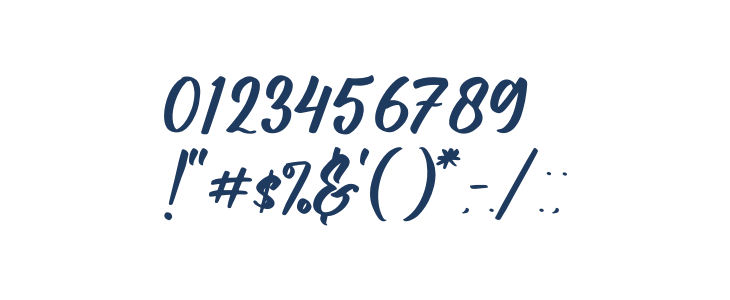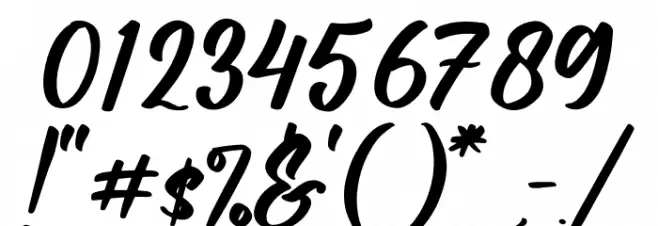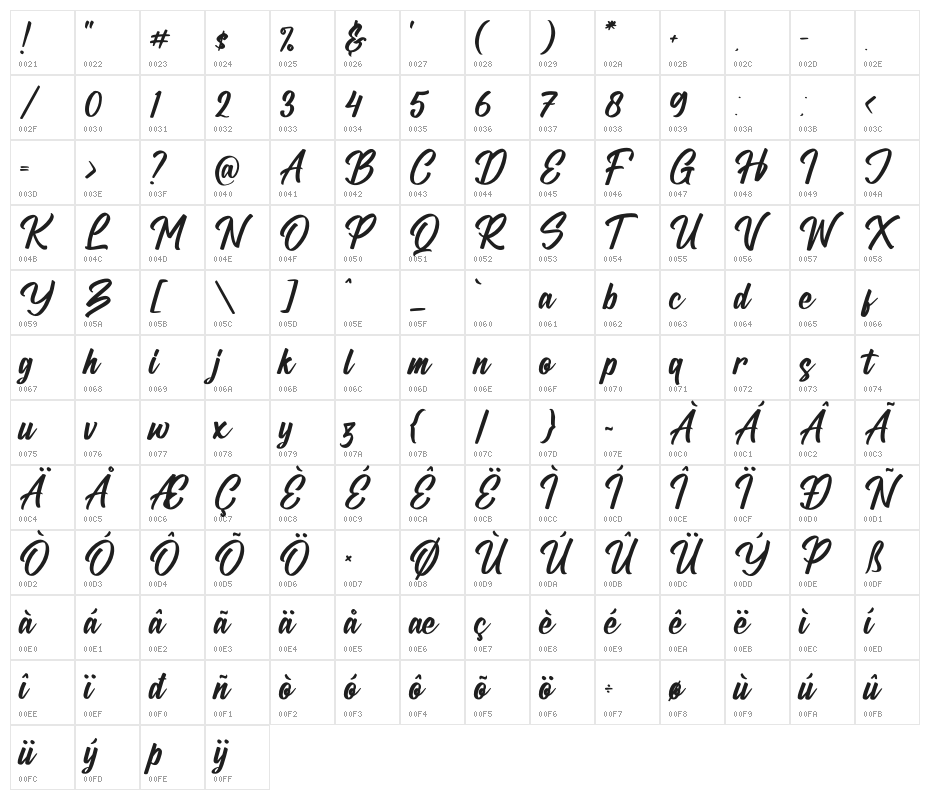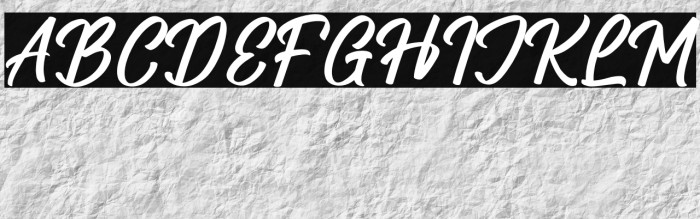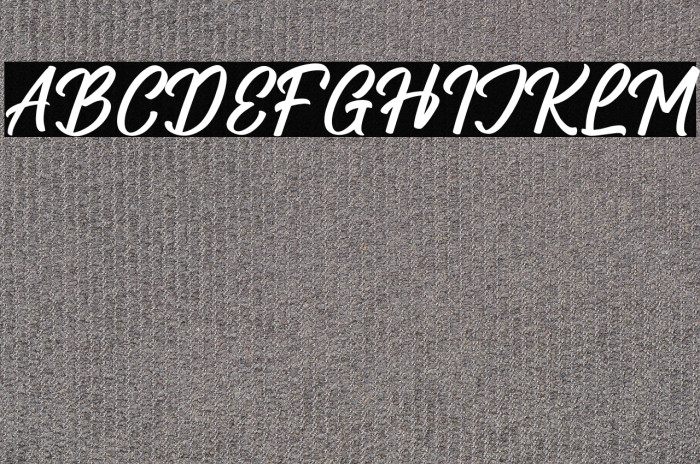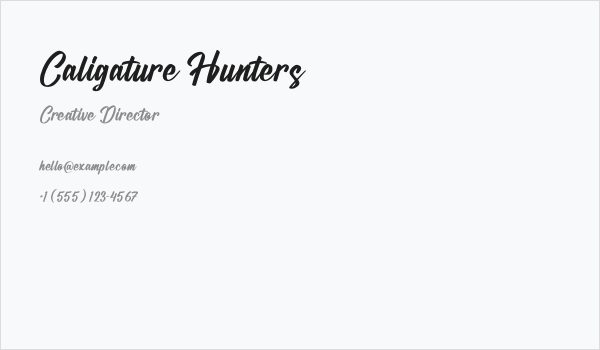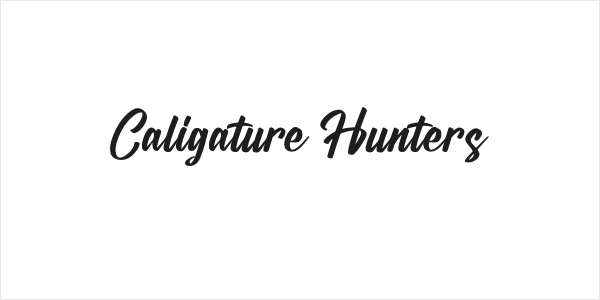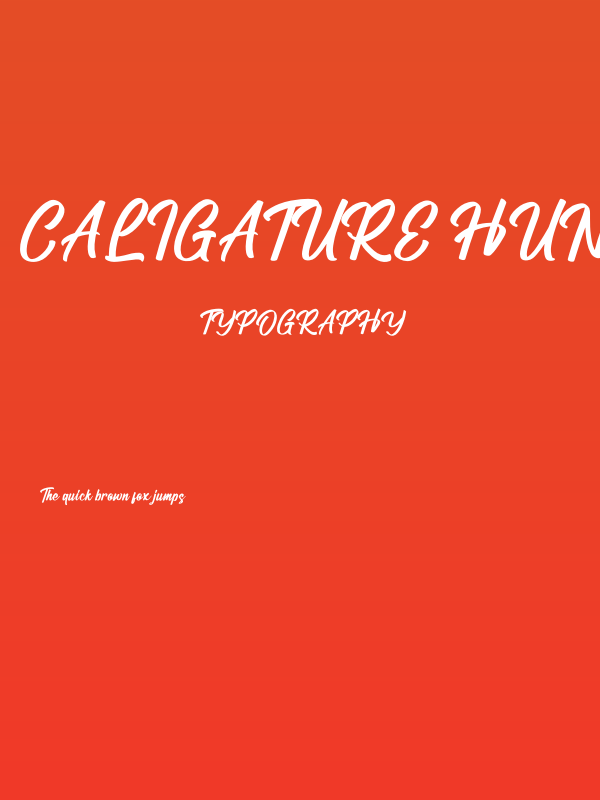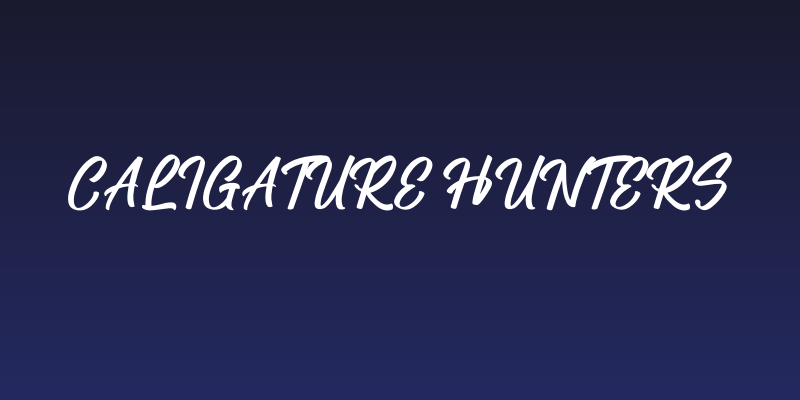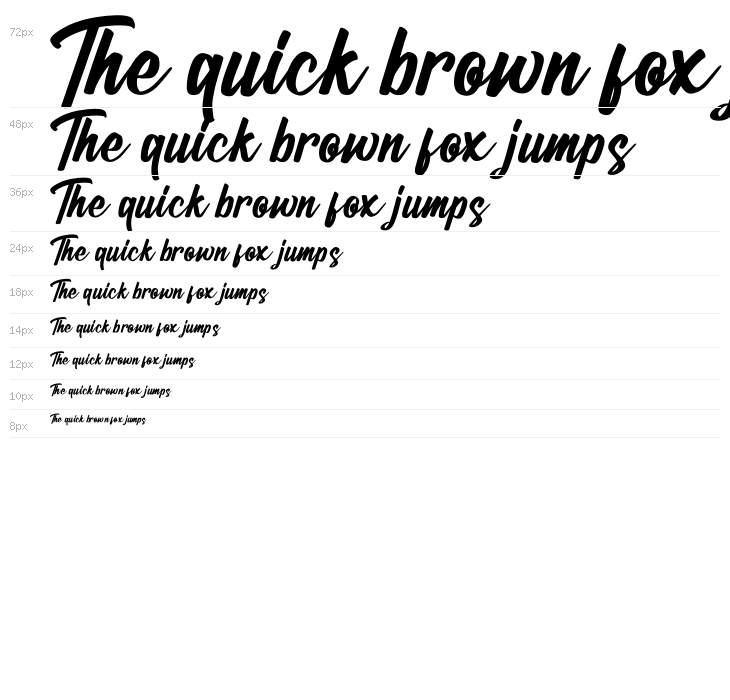
Caligature Hunters Font
Caligature Hunters Description
This font features a bold and expressive script style, characterized by its fluid, cursive strokes that convey a sense of elegance and dynamism. The uppercase letters are slightly slanted, with a consistent stroke width that adds to its bold appearance. The lowercase letters maintain a harmonious flow, with some characters featuring unique loops and swashes that enhance its decorative appeal. The numerals are well-integrated into the script style, maintaining the same boldness and fluidity. Special characters are designed to complement the overall aesthetic, making this font suitable for creative and artistic projects.